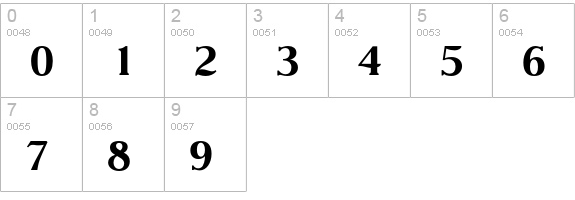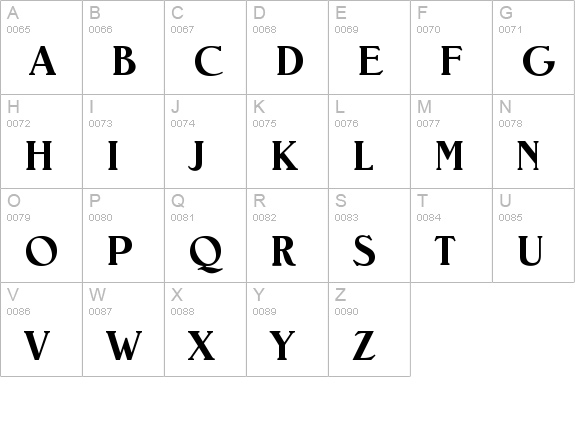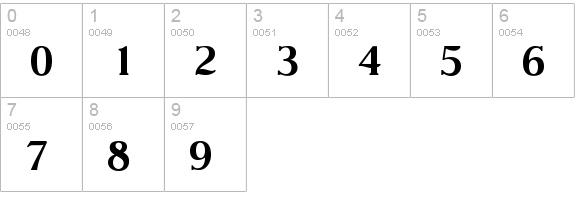
Nevada-DemiBold is a sub-bold, structured variant in the Nevada typeface family \xE2\x80\x94 well suited to sub-headlines and emphasised passages.
Nevada-DemiBold font exudes a sense of modernity and sophistication with its bold yet elegant design. Its sleek lines and strong presence make it perfect for a wide range of design projects, from branding to editorial design. The versatility of Nevada-DemiBold font allows it to stand out while maintaining a sense of professionalism. And the best part? Nevada-DemiBold font is available for free download at FontsMarket.com. This means you can easily access this stylish and versatile font to elevate your designs without breaking the bank. Don't miss out on the opportunity to add Nevada-DemiBold font to your font collection today!